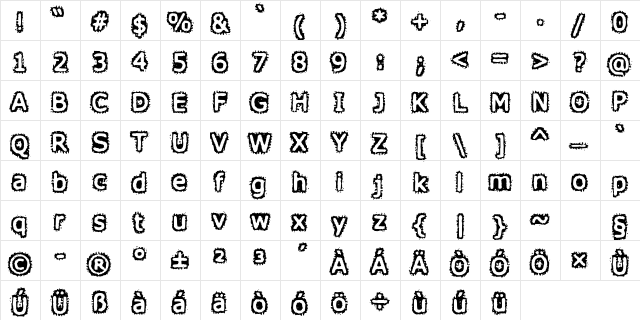
Honey I spilt Verdana...! Regular Free Font
Honey I spilt Verdana...! Regular
Design Context for Honey I spilt Verdana...!
Honey I spilt Verdana...! is a composed and adaptable typeface that performs quietly and consistently across a wide range of design contexts.
Pro Tip: Use Honey I spilt Verdana...! in both headline and body roles to test its range before committing to a single application.